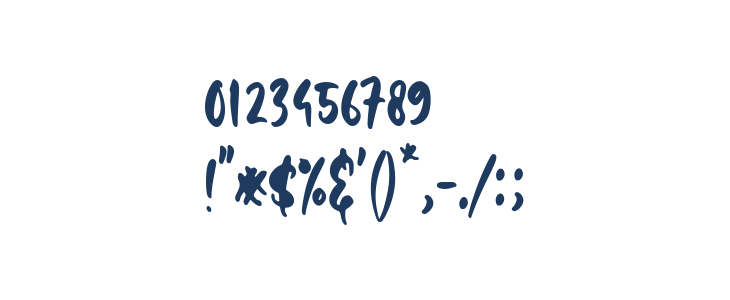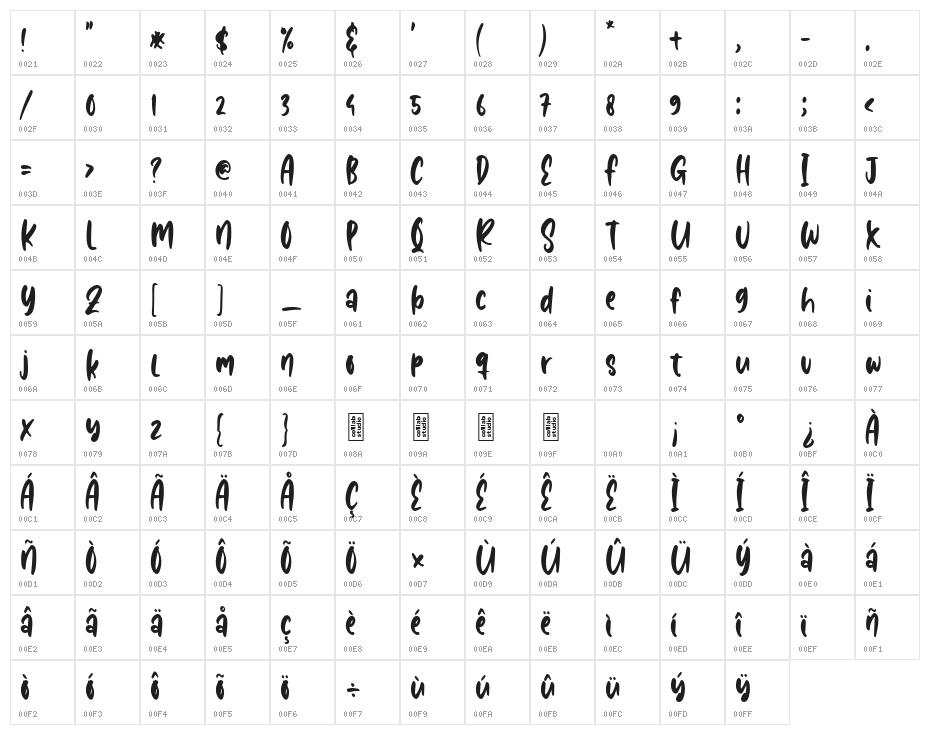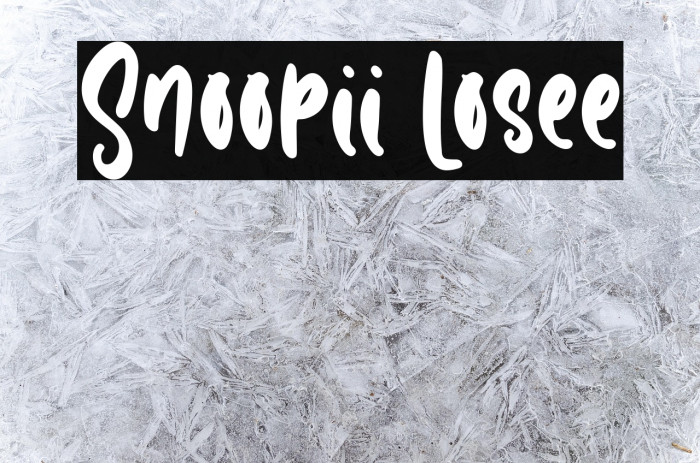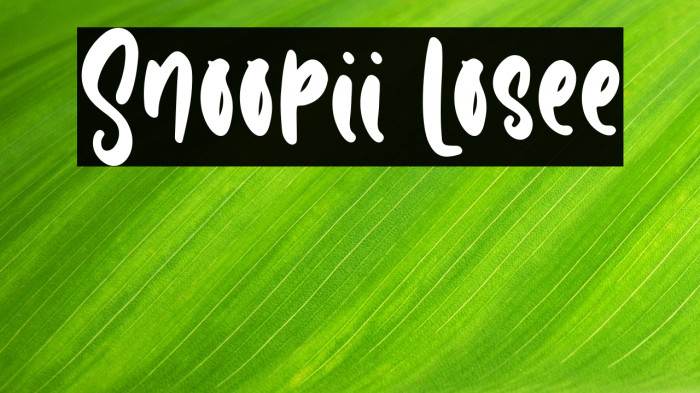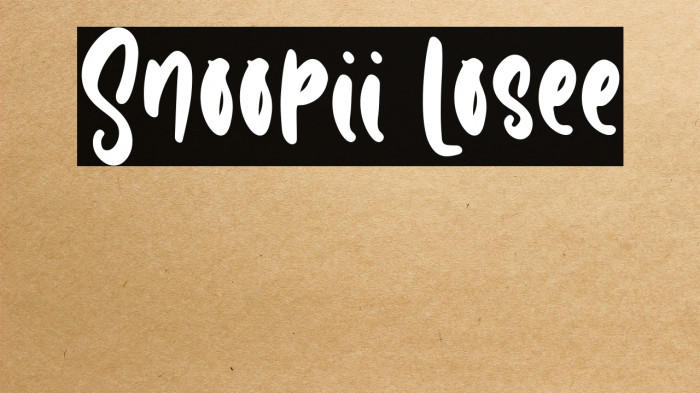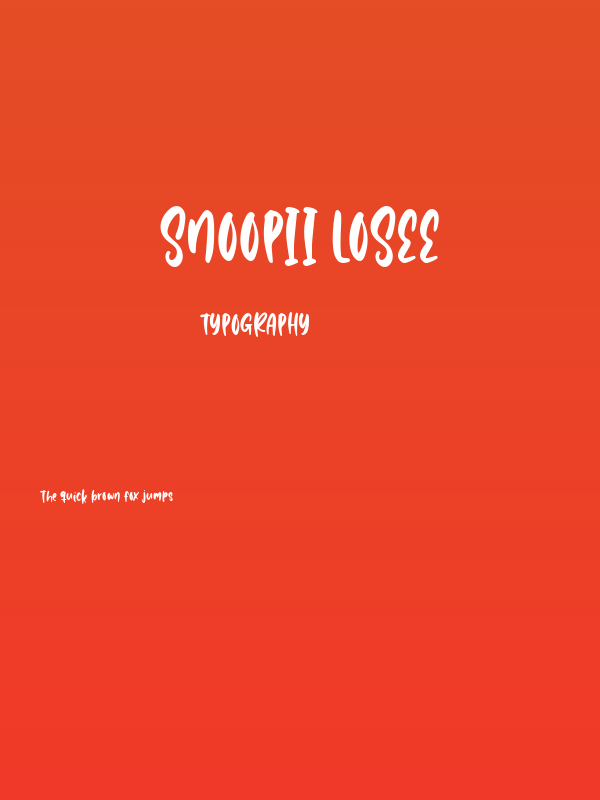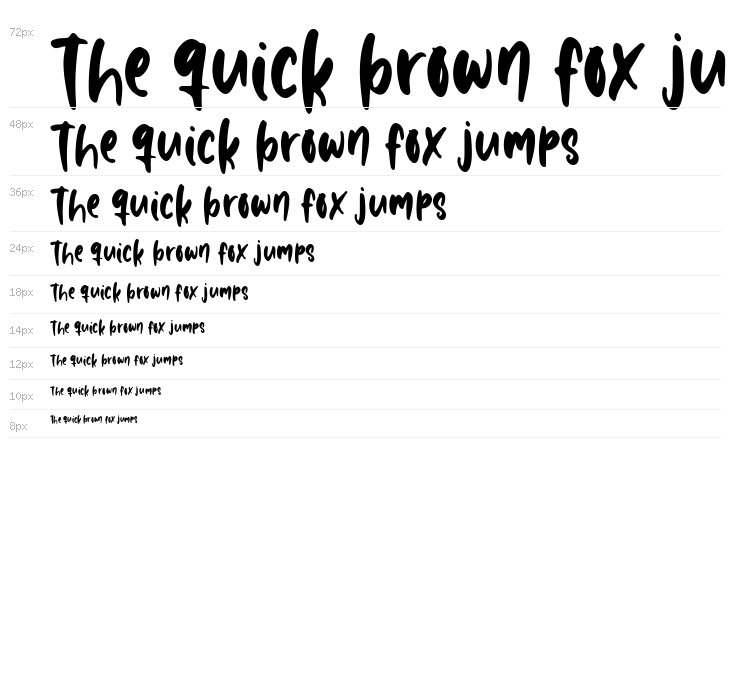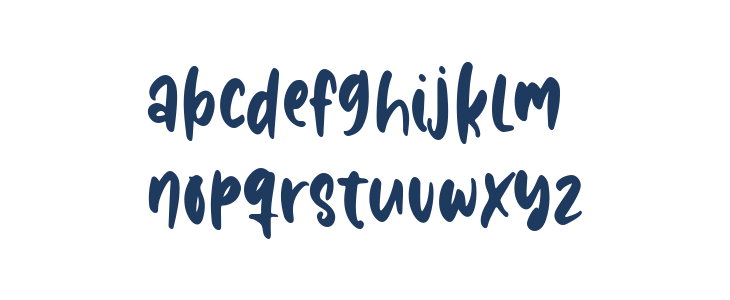
Snoopii Losee Font
Snoopii Losee Description
This font features a bold and playful handwritten style, characterized by its thick strokes and energetic curves. The letters have a casual, informal appearance, with a slight slant that adds to its dynamic feel. The uppercase and lowercase letters are well-balanced, maintaining a consistent flow throughout. The numbers and special characters follow the same lively aesthetic, making the font versatile for various creative applications. Its bold presence makes it ideal for eye-catching designs.
| Proposed Projects | Perfect for greeting cards, posters, branding, and social media graphics where a lively and informal touch is desired. |